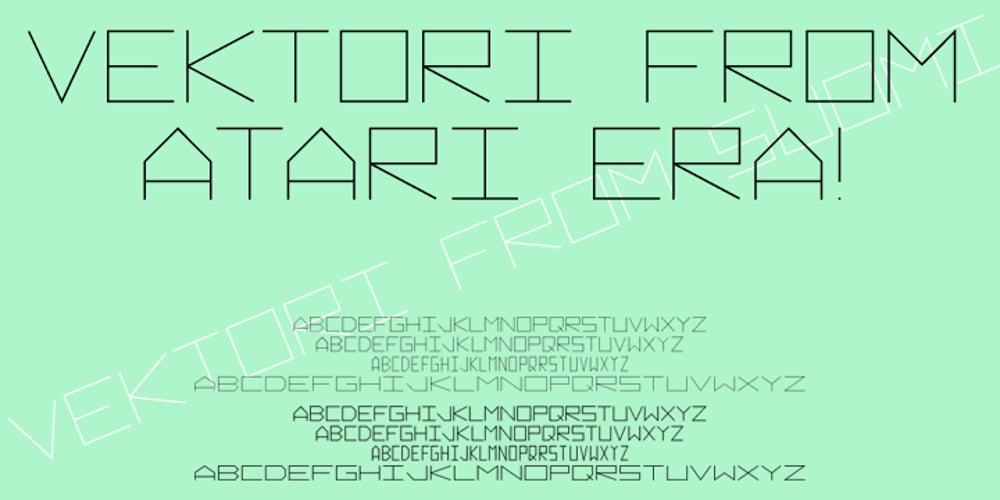
Vektori
Vektori font
Vektori Font Family was designed by Tomi Haaparanta and published by Suomi. Vektori contains 8 styles and family package options. Vektori family comes from those Atari games that had those distinct vector graphics with thin and precise straight lines.